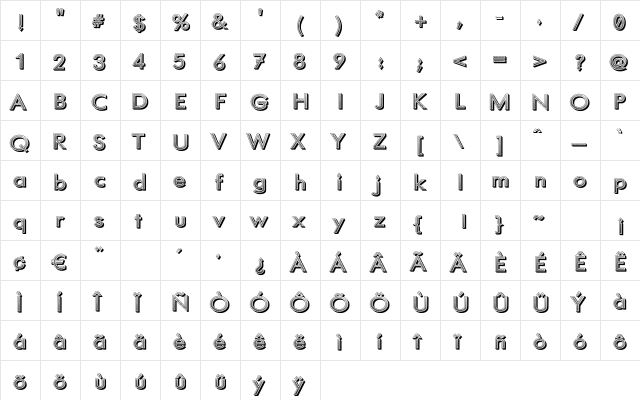
Phoenix Rising Regular
Design Context for Phoenix Rising Typeface
Phoenix Rising is a composed and adaptable typeface that performs quietly and consistently across a wide range of design contexts.